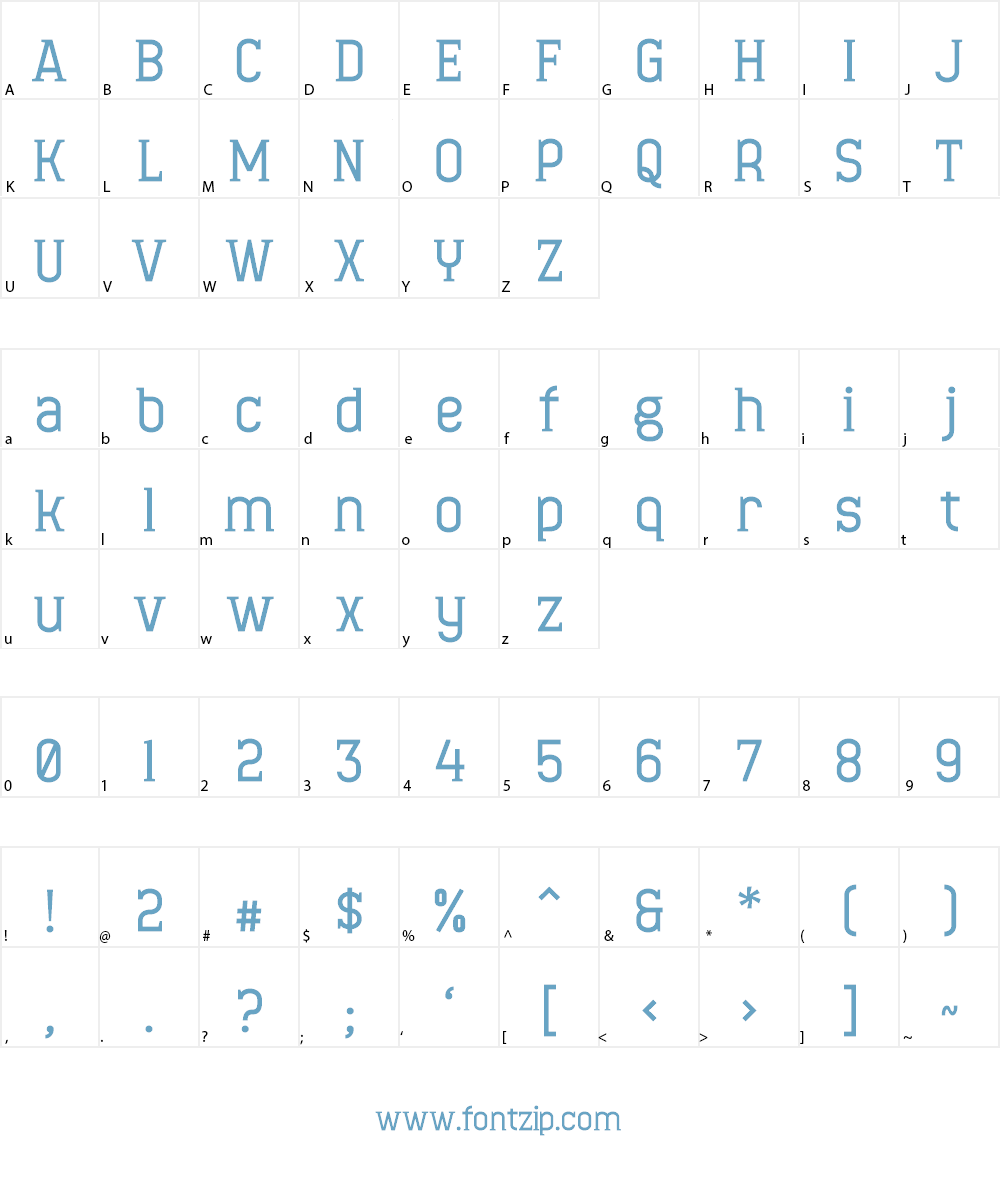
Welcome to "Minaeff (Eff)ect", 100% free web font, proudly ours and designed especially for website designers and bloggers! This font is Clean, New, Legible, Unique and simply awesome.